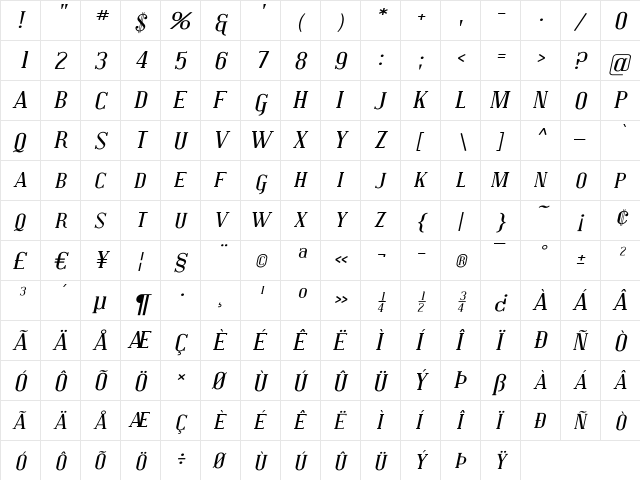
Covington SC Exp Italic
Italic ·  Derek Vogelpohl ·
DesignerDerek Vogelpohl
Design Context for Covington SC Exp Typeface
Covington SC Exp takes a measured approach to typography — its balanced proportions and neutral character make it a reliable workhorse for both digital and print work. The dynamic lean of this cut emphasises speed and emphasis in any layout.
Pro Tip: Try Covington SC Exp for annotation and caption copy alongside an upright companion — the contrast in angle creates a dynamic but ordered typographic system.